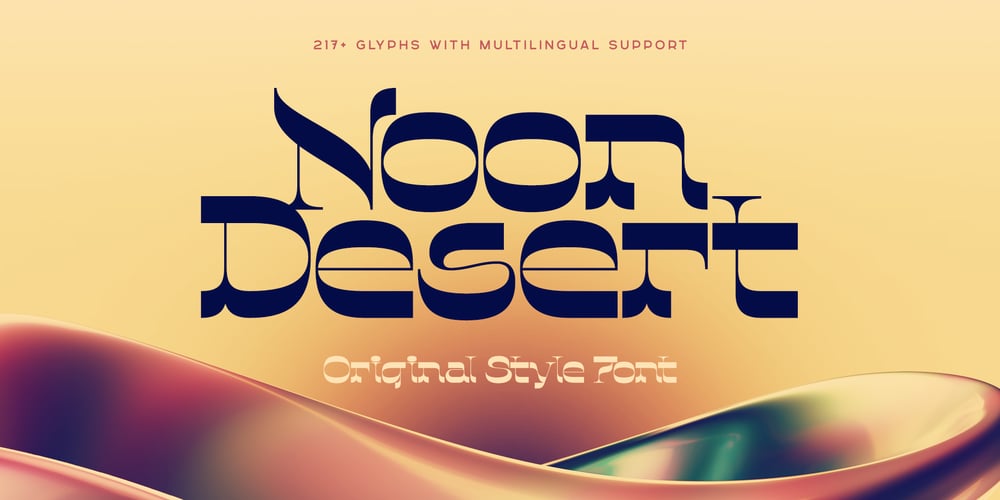
Noon Desert
Noon Desert font
Noon Desert Font Family was designed by Gleb Guralnyk and published by Gleb Guralnyk. Noon Desert contains 1 styles and family package options. Hello! Presenting an unusual font — Noon Desert. This typeface has an elegant combination of slab & serif shape with calligraphic notes. Noon Desert font has multilingual support (check out a screenshot with available characters).Thank you and wish you a peaceful sky!